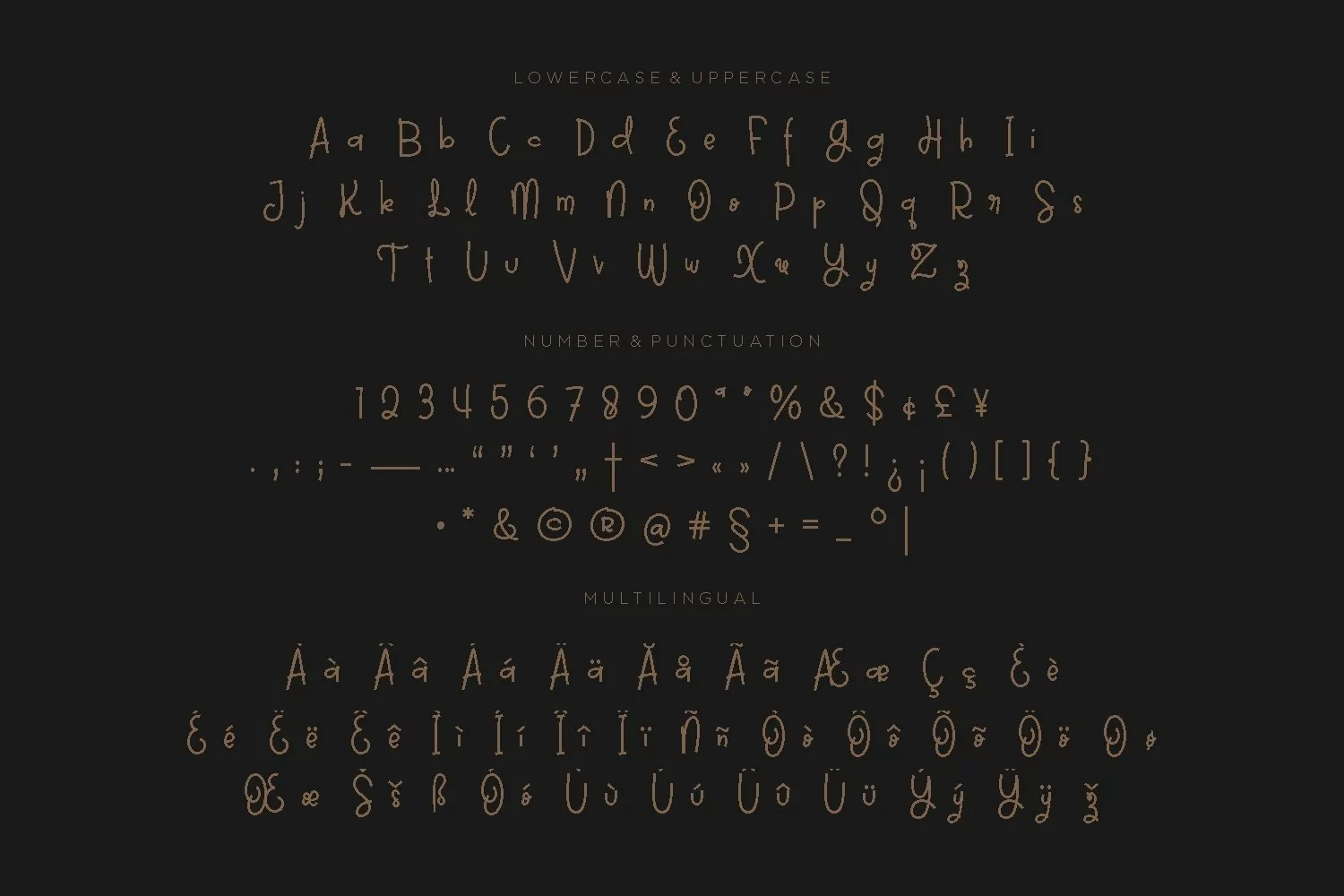
Heydoes is a stylish beauty display typeface with elegant themes. It matches applies in some designs such as the logotype, brand, packaging, quotes, poster, t-shirt, cover book, wedding invitation and more custom design. The features uppercase, lowercase, numeral, punctuation & symbol, multilingual support, PUA encoded (fully accessible without additional design software).